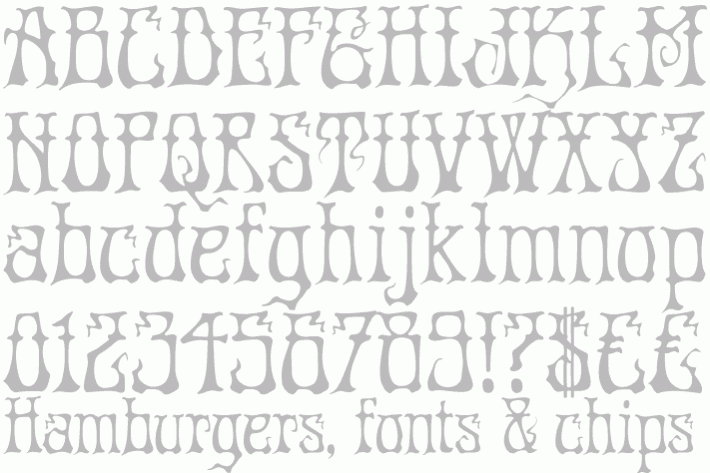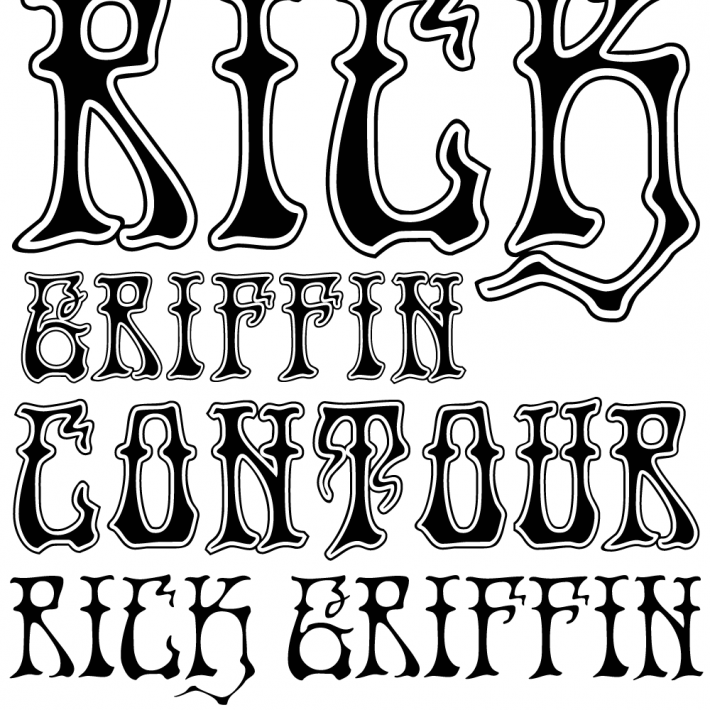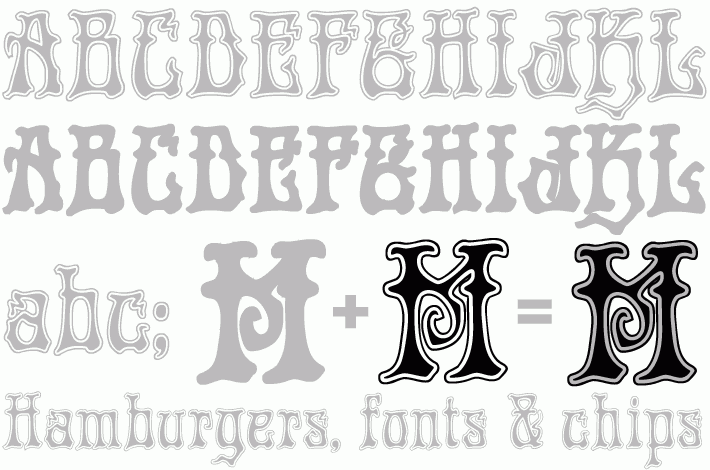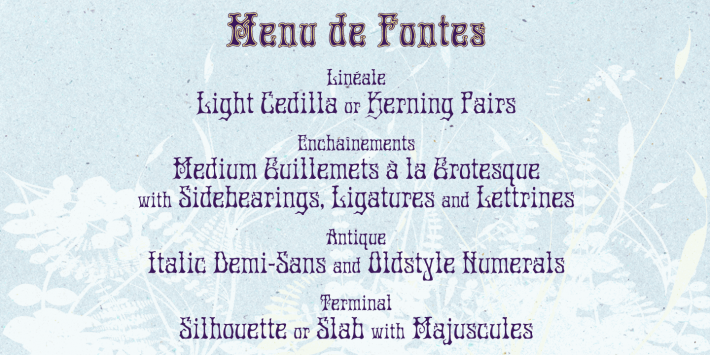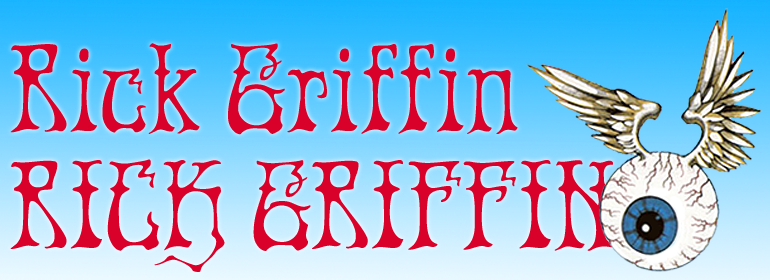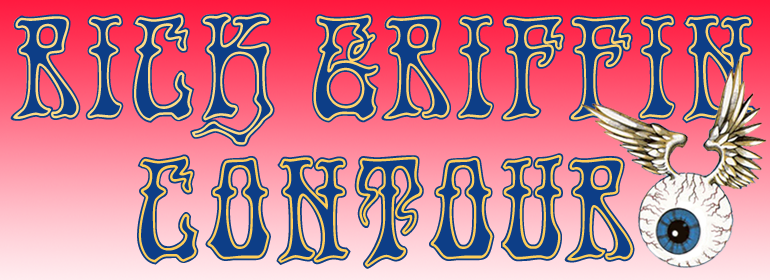
Rick Griffin
The two Rick Griffin font packages are based on the 1960s psychedelic poster lettering of the Californian artist.
Rick Griffin Regular is the plain font without outlines.
The Rick Griffin Contour package has the additional outline characteristic of many Griffin posters and comes with a matching Rick Griffin Contour Ground font for color underlays.